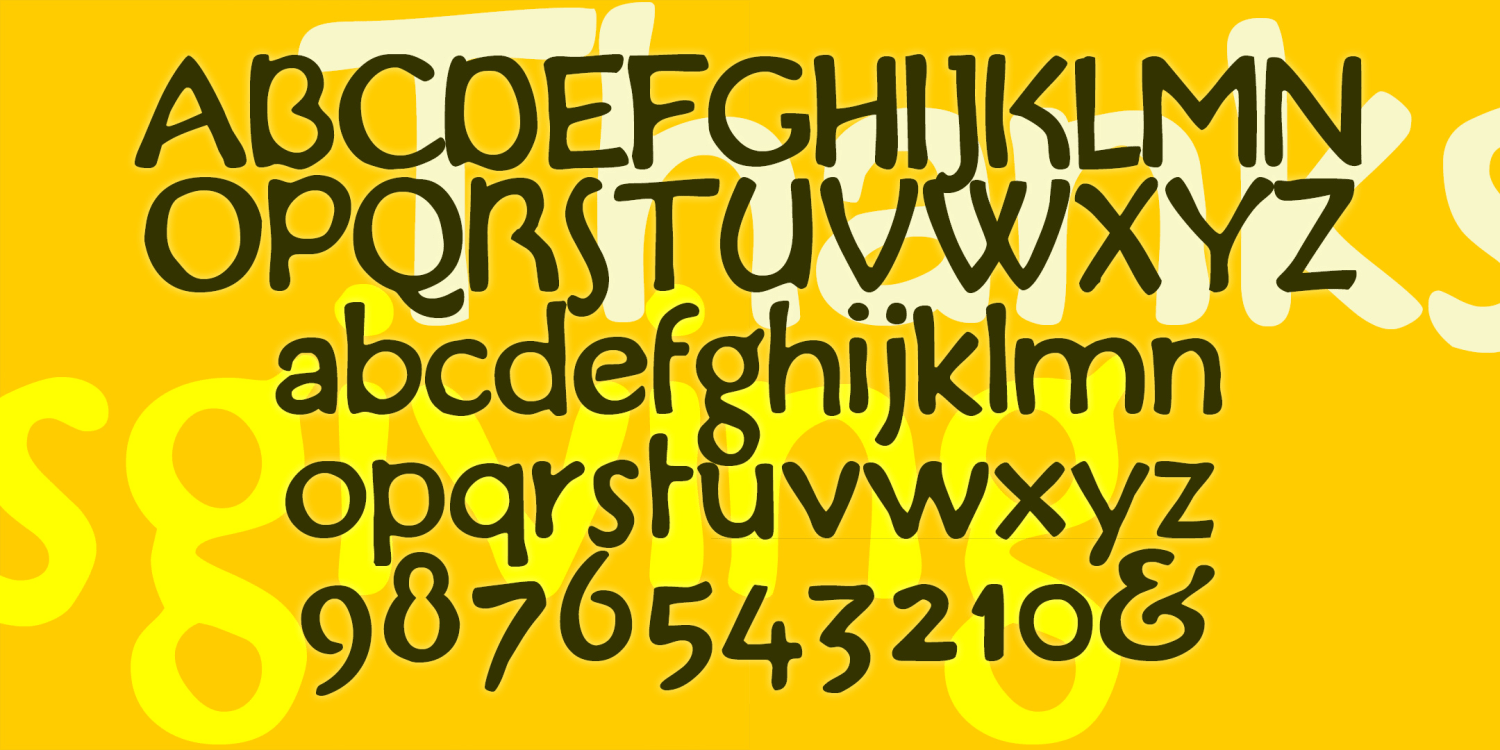
Thanksgiving
THANKSGIVING has an old-time, friendly look. It was inspired by the handlettered "Buzza-type" mottos Grandma would have had tacked up in little frames. My husband, Al, collects these little homilies and I became interested in the lettering on one in particular.
The Thanksgiving font family includes 251 glyphs.